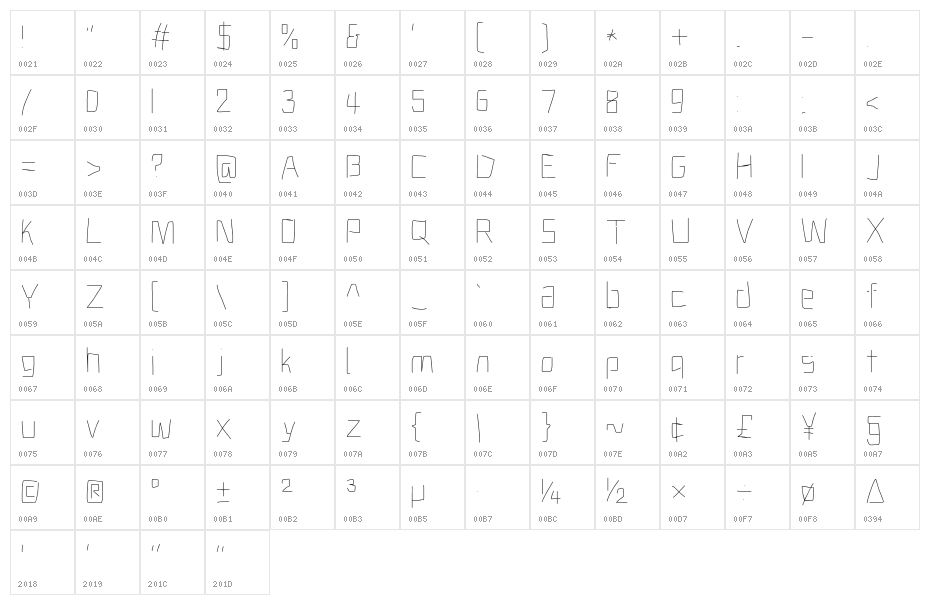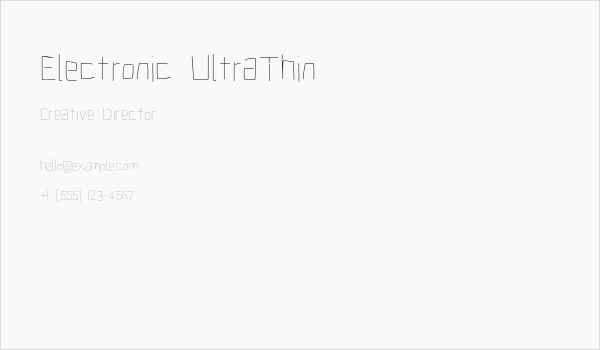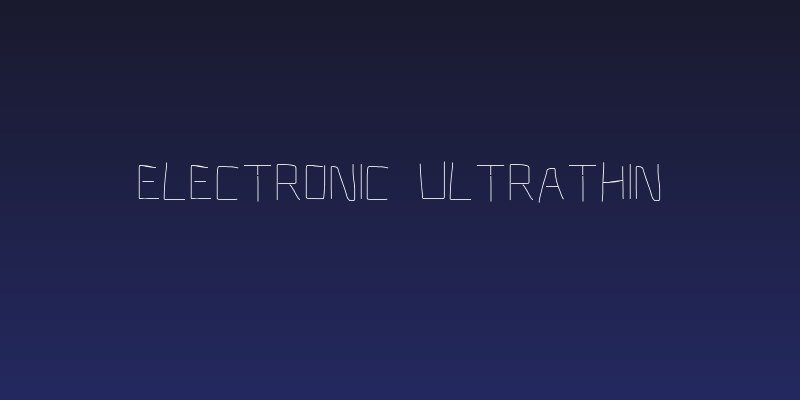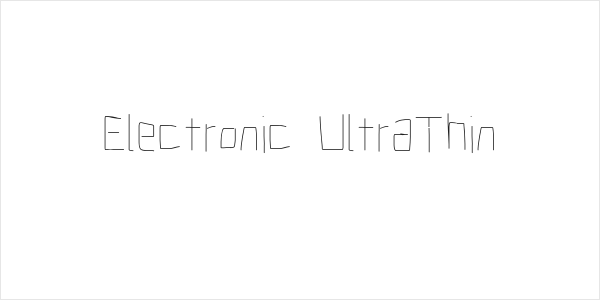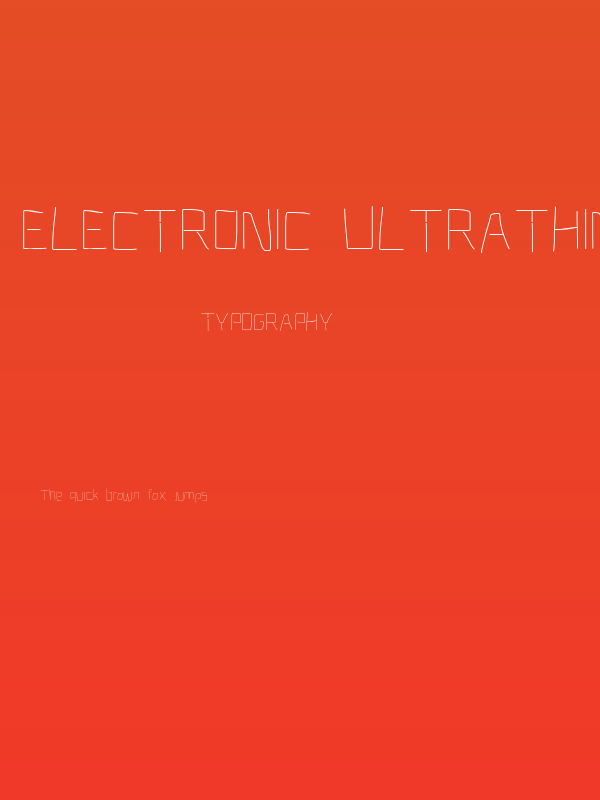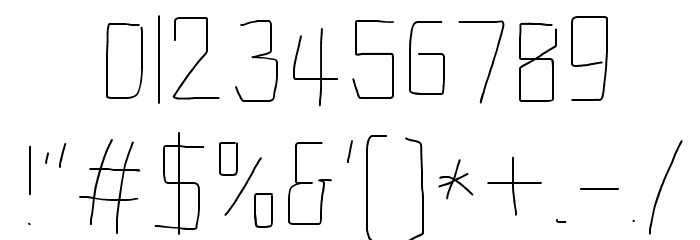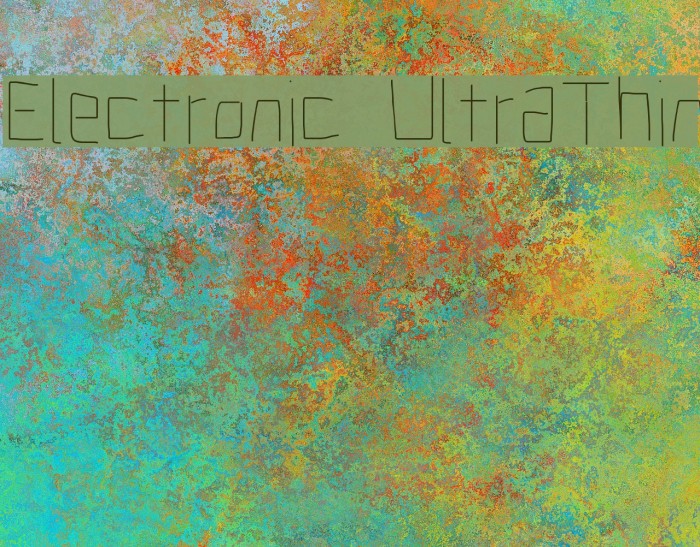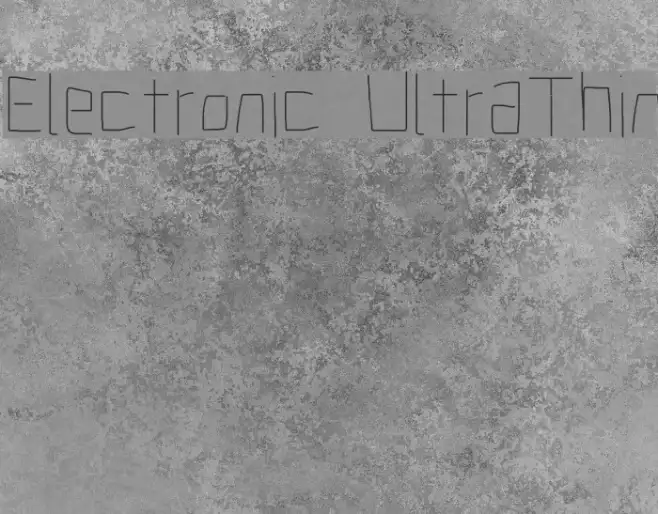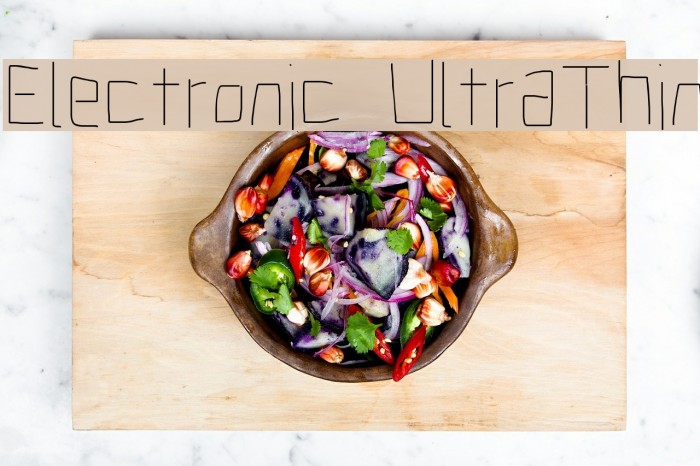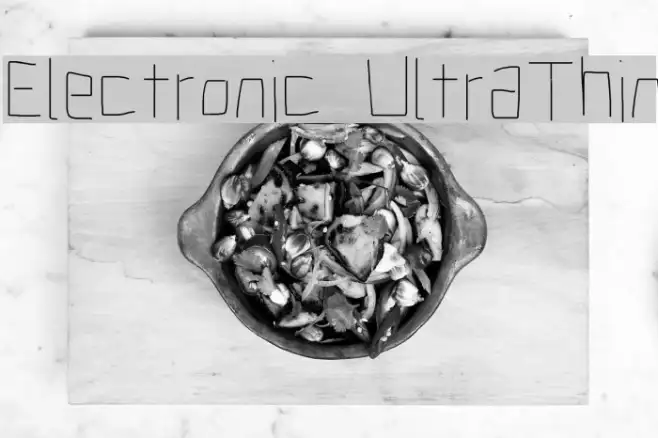
Electronic UltraThin Font
Electronic UltraThin Description
This font features an ultra-thin, geometric design with a modern and minimalistic aesthetic. Each character is constructed with straight lines and sharp angles, giving it a digital and futuristic feel. The uppercase and lowercase letters maintain a consistent height, while the numerals and special characters follow the same linear style. The overall appearance is clean and precise, making it suitable for contemporary design projects. The font's simplicity and clarity make it highly legible, even at smaller sizes, while its unique style adds a touch of sophistication and elegance.
| Use Case | Headlines, Logos, Digital interfaces |
| Proposed Projects | Ideal for tech-related branding, digital interfaces, modern posters, and minimalist graphic design. |